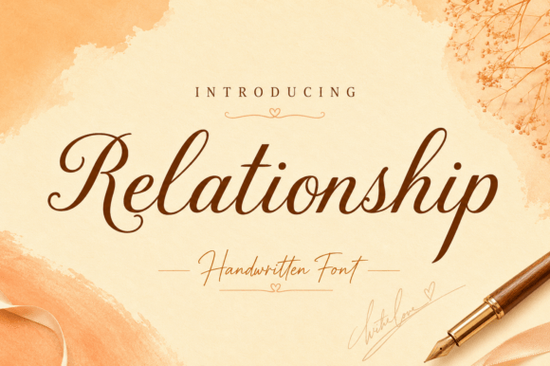
If you're looking for a script font that feels both timeless and fresh something that works just as well on a wedding invitation as it does on a boutique logo you’ll likely find the Relationship Font fits naturally into your workflow. It’s not overly ornate, but it carries weight: graceful curves, connected letterforms, and subtle swashes that suggest care and intention without shouting for attention. Designed with real-world use in mind, it’s the kind of typeface that quietly supports your message instead of competing with it.
What makes Relationship Font different from other script fonts?
Many script fonts lean too far in one direction either too rigid and formal, or too loose and casual. Relationship Font sits comfortably in the middle. Its letters flow like hand-drawn calligraphy, but with consistent spacing and clean terminals that make it highly legible at smaller sizes. That balance means it holds up well in digital mockups, printed stationery, and even embroidered patches or vinyl decals common needs for crafters and small business owners.
You’ll notice the uppercase swashes are generous but controlled, adding visual interest without sacrificing readability. Lowercase letters connect smoothly, which helps maintain rhythm in longer phrases ideal for quotes, product tags, or packaging copy. And unlike some script fonts that require extensive manual kerning, Relationship Font includes thoughtful default spacing, so it looks polished right out of the box.
Where does this font work best?
Wedding designers often reach for Relationship Font when building invitation suites especially for names, dates, or short ceremony details. But its versatility extends further:
- Small business branding: Think coffee shops, florists, or handmade skincare lines where warmth and authenticity matter.
- Print-on-demand products: Works cleanly on mugs, tote bags, and greeting cards no thin strokes that risk fading during printing.
- Digital graphics: Holds up well in Instagram story templates, Canva designs, or email headers when exported as high-res PNGs or SVGs.
- Craft projects: Cuts cleanly with Cricut and Silhouette machines, especially when using the OTF version with OpenType features enabled.
It’s also a smart pairing font. Try layering it over a simple sans-serif (like Montserrat or Poppins) for contrast headline in Relationship Font, body text in something neutral. This combo feels intentional, not trendy.
How does it compare to similar fonts on Creative Fabrica?
If you’ve used Neat & Clean Handwritten Font Bundle, you’ll appreciate how Relationship Font offers more structure while keeping organic movement. For fans of bold, expressive scripts, Chicano Font brings streetwise energy but Relationship Font leans softer and more refined. If you love the delicate feel of Reaches Font, you’ll recognize a shared sensitivity to line weight and spacing, though Relationship Font adds more personality in its capitals.
Those who’ve worked with Amor Note Font will spot similarities in romantic tone but Relationship Font avoids cutesy flourishes, making it easier to adapt across age groups and contexts. And compared to Amellia Font, it trades some of that airy lightness for grounded elegance, giving it more presence on physical materials like letterpress paper or textured cardstock.
For print projects, always export as PDF/X-4 or embed fonts fully. If you’re cutting vinyl or heat-transfer material, convert text to outlines first to avoid missing glyphs. And remember: script fonts shine brightest when given breathing room avoid cramming too much text onto one line or shrinking it below 18pt for body copy.
For reference, you can see how Relationship Font is used across real projects on Creative Fabrica’s marketplace look for user-uploaded mockups to get a sense of scale and context.